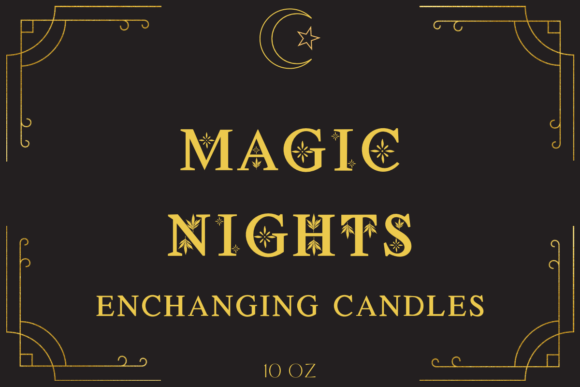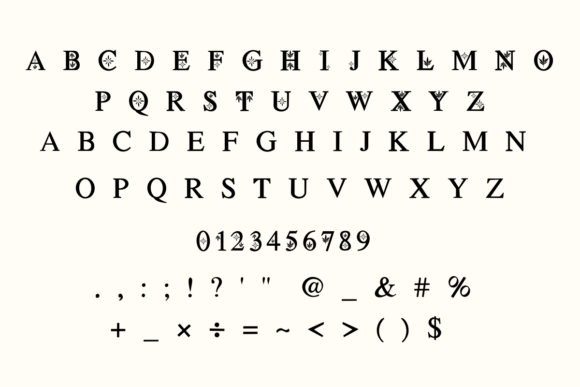
Mystic Magic Font
Experience the ethereal charm of Mystic Magic, a decorative font that effortlessly brings an enchanting touch to your creative endeavors. Perfectly suited for notetaking, penning personal journals, or crafting heartfelt greeting cards, its versatility doesn’t stop there. Besides these, Mystic Magic flourishes when used in diverse designs ranging from striking banners and appealing content to personalized mugs, distinct cards, and customized shirts. Extend the allure of this whimsical font to your stationery, social media posts and more, adding an alluring swirl of mystique to your creations.